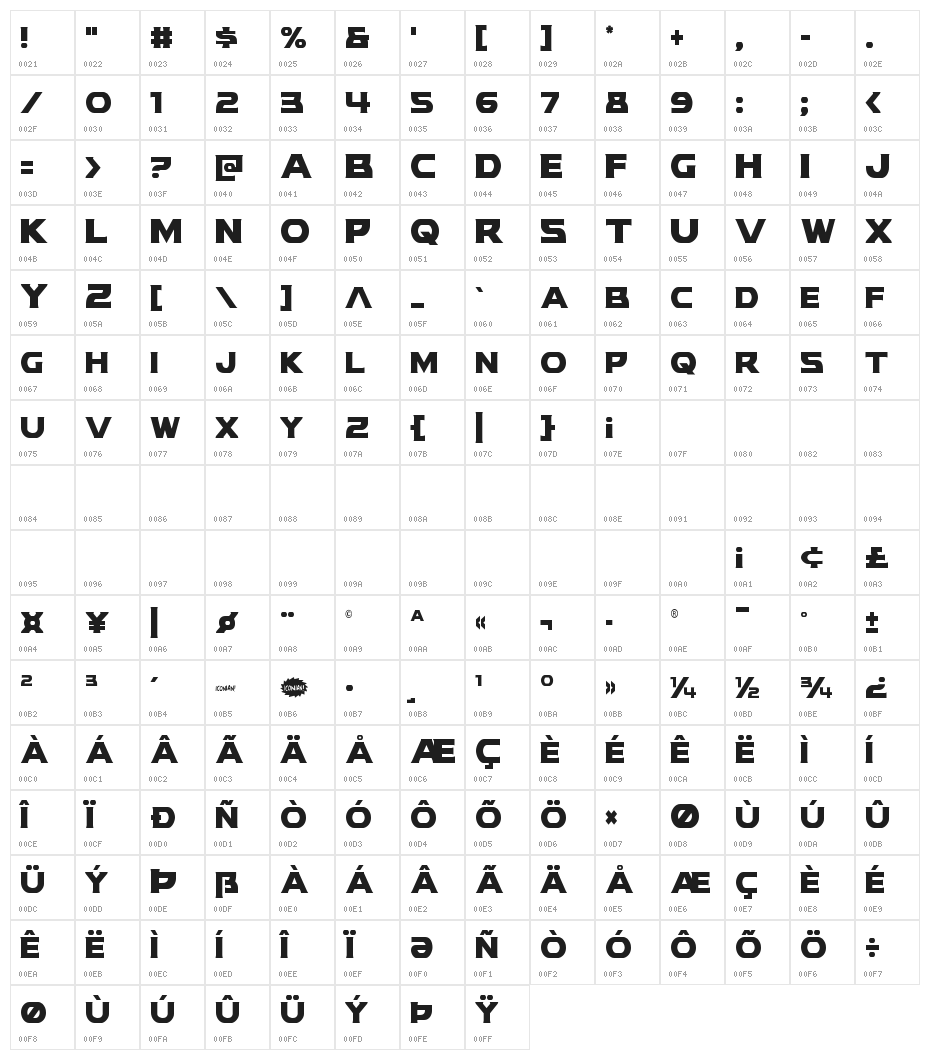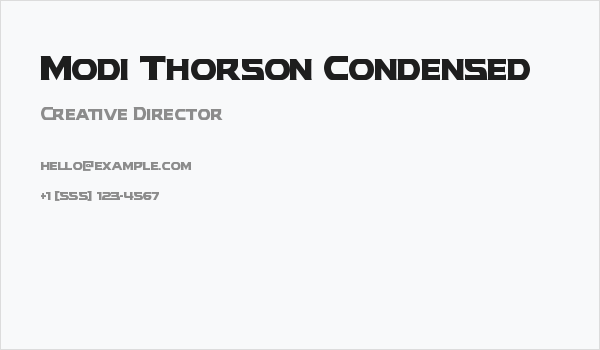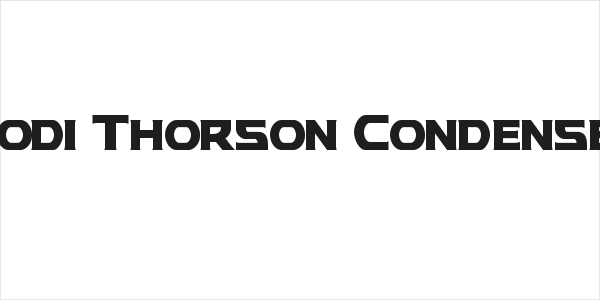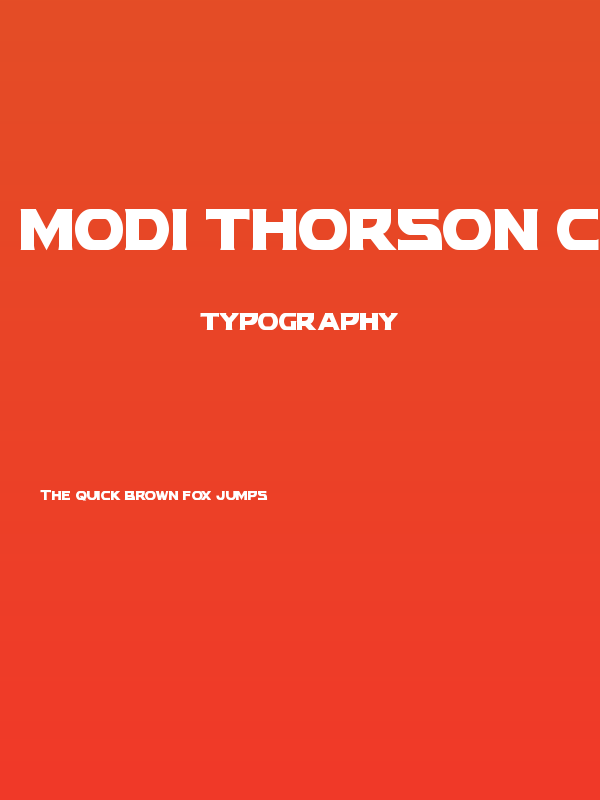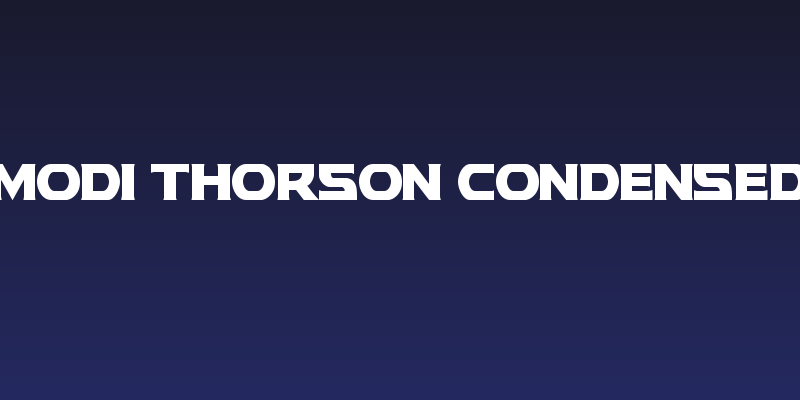
Modi Thorson Condensed Font
Modi Thorson Condensed Description
This font features a bold and impactful design with a condensed structure, making it ideal for creating strong visual statements. The characters are uniformly thick, with sharp angles and a geometric style that conveys a sense of modernity and strength. The uppercase letters are particularly striking, with a consistent height and width that enhances readability. The numbers and special characters maintain the same boldness, ensuring a cohesive look across all text elements. This font's design is well-suited for projects that require a commanding presence.
| Proposed Projects | Ideal for headlines, posters, branding, and any design needing a strong visual impact. |